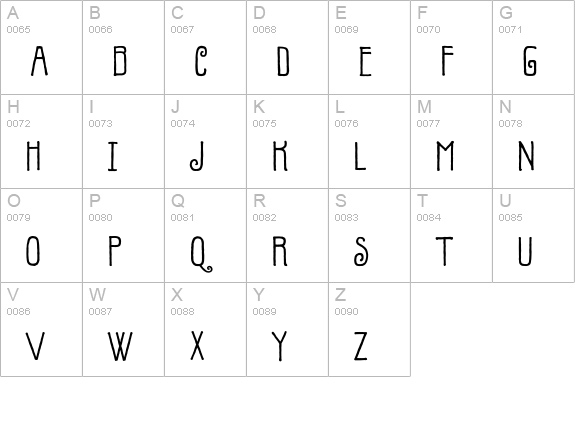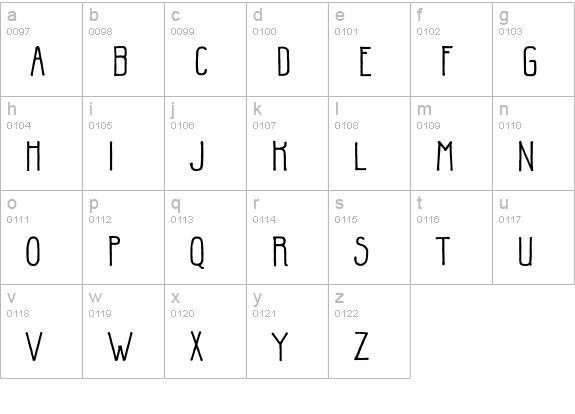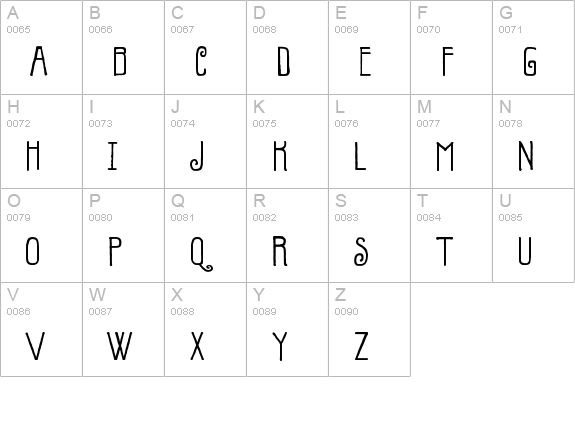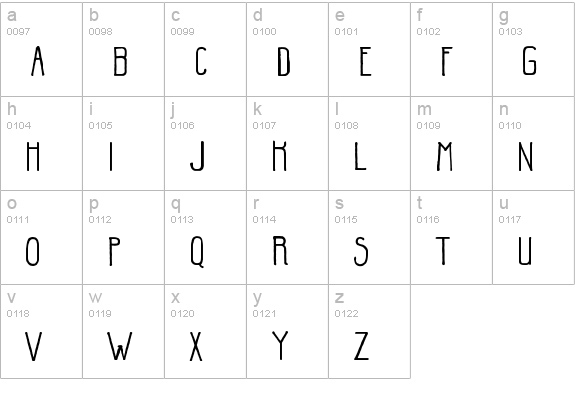
P22Parrish-Hand Font Details
Introducing P22Parrish-Hand, a stunningly artistic font that effortlessly captures the essence of hand-drawn calligraphy. With its elegant curves and intricate details, this font exudes a timeless charm that is perfect for adding a touch of sophistication to any design project. Designed by the talented typographer, P22 Type Foundry, P22Parrish-Hand is a true masterpiece. Each letter has been meticulously handcrafted to showcase the delicate nuances of calligraphy, resulting in a font that is both visually captivating and incredibly versatile. What sets P22Parrish-Hand apart is not only its exquisite aesthetics but also its accessibility. This font is freely available to download at FontsMarket.com, making it a valuable asset for designers, artists, and enthusiasts alike. Whether you are working on a branding project, creating elegant wedding invitations, or simply looking to add a touch of elegance to your personal creations, P22Parrish-Hand is the perfect choice. The versatility of this font shines through in its ability to effortlessly adapt to various design styles. From vintage and retro to modern and contemporary, P22Parrish-Hand seamlessly integrates with any aesthetic, elevating the overall visual appeal of your project. Each character of P22Parrish-Hand is meticulously crafted to maintain its authenticity, ensuring that every stroke and flourish reflects the artistry of traditional calligraphy. The result is a font that exudes a sense of hand-drawn elegance, adding a personal touch to your designs. With its wide range of alternate characters, ligatures, and swashes, P22Parrish-Hand offers endless possibilities for creative expression. Whether you want to add flourishes and embellishments or experiment with different letterforms, this font allows you to customize and tailor your designs to perfection. Designed with the utmost attention to detail, P22Parrish-Hand is a font that embodies the beauty of calligraphy in a digital form. It is a true testament to the power of artistic expression and serves as a reminder of the timeless elegance that handcrafted fonts bring to the world of design. Download P22Parrish-Hand for free today at FontsMarket.com and unleash your creativity with this stunning font that effortlessly combines traditional calligraphy with modern convenience.